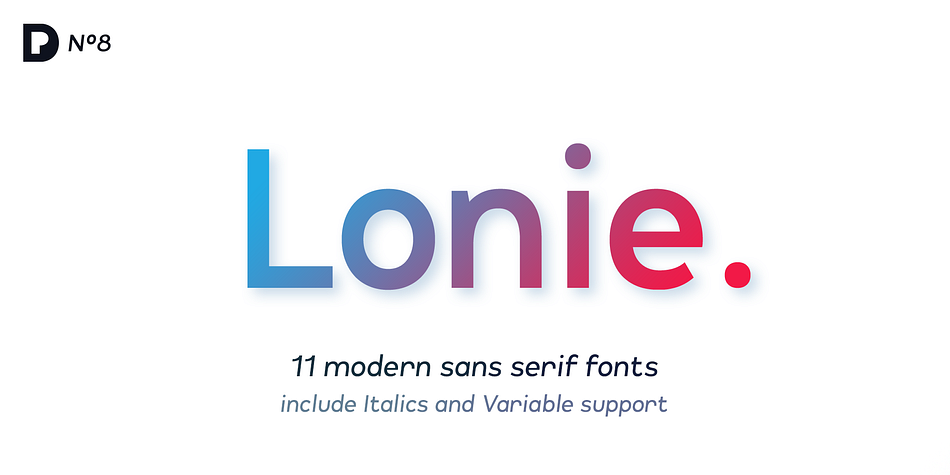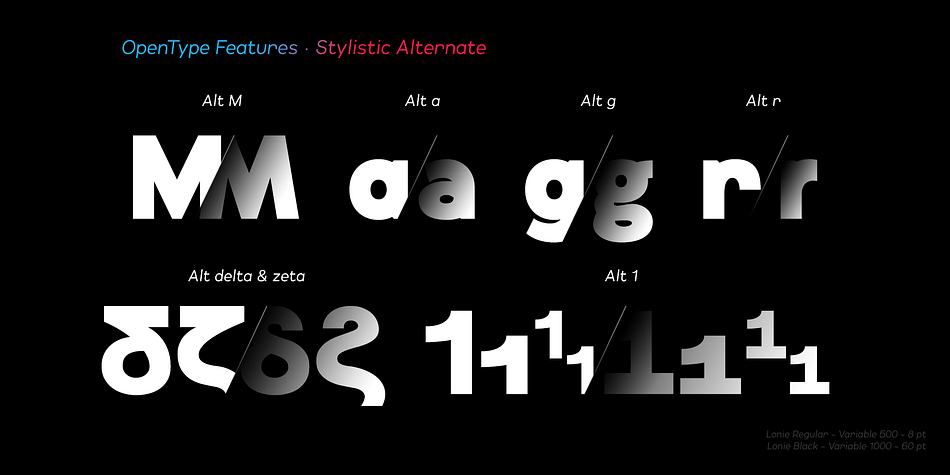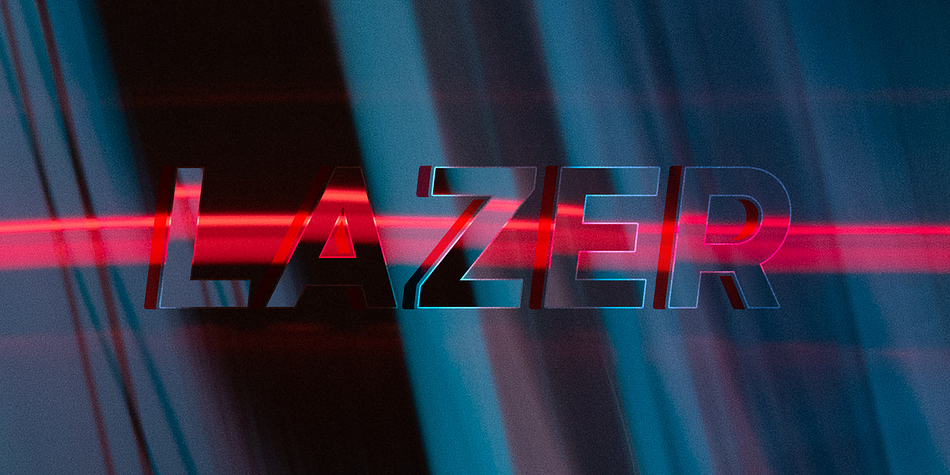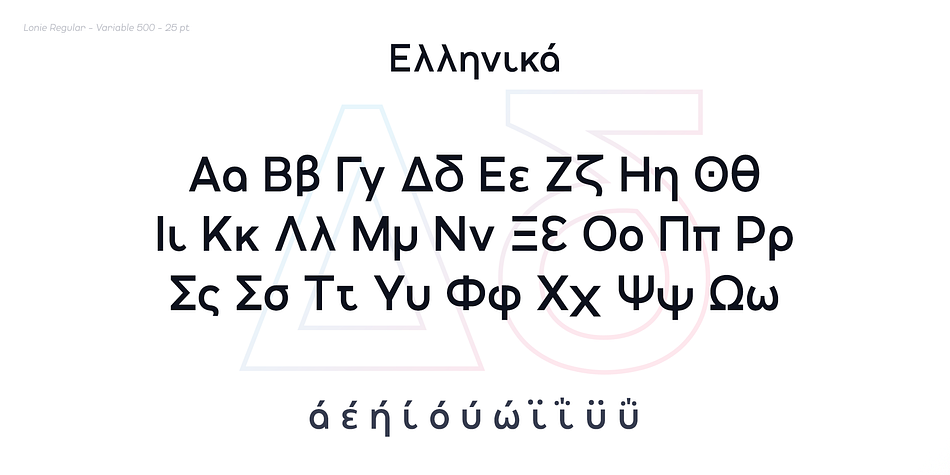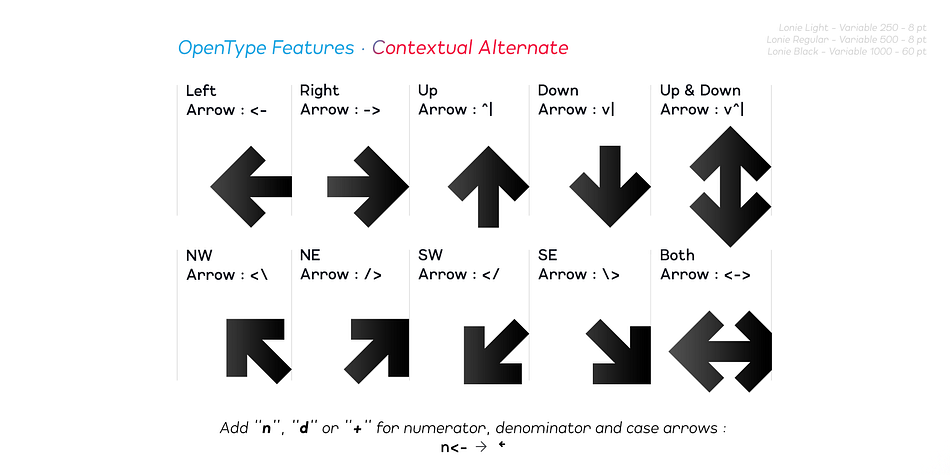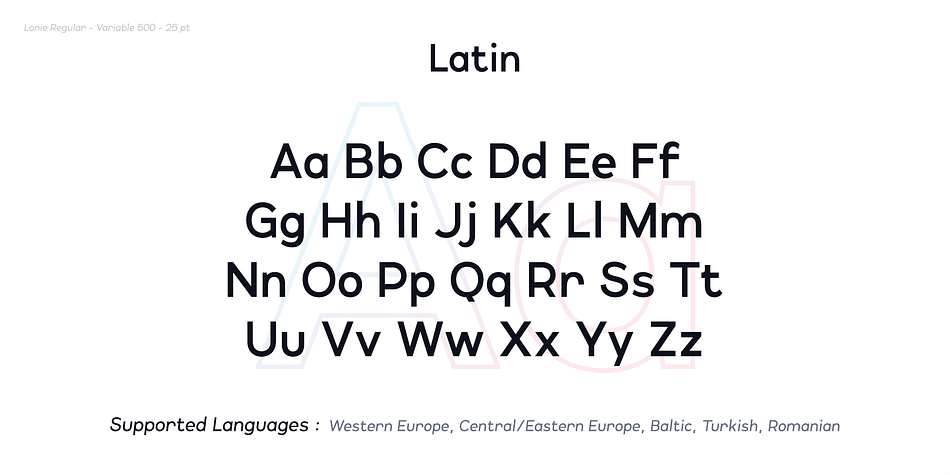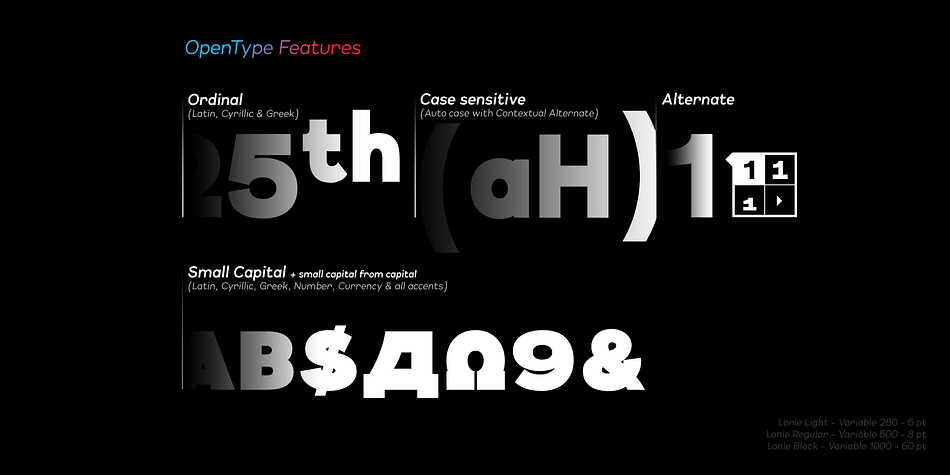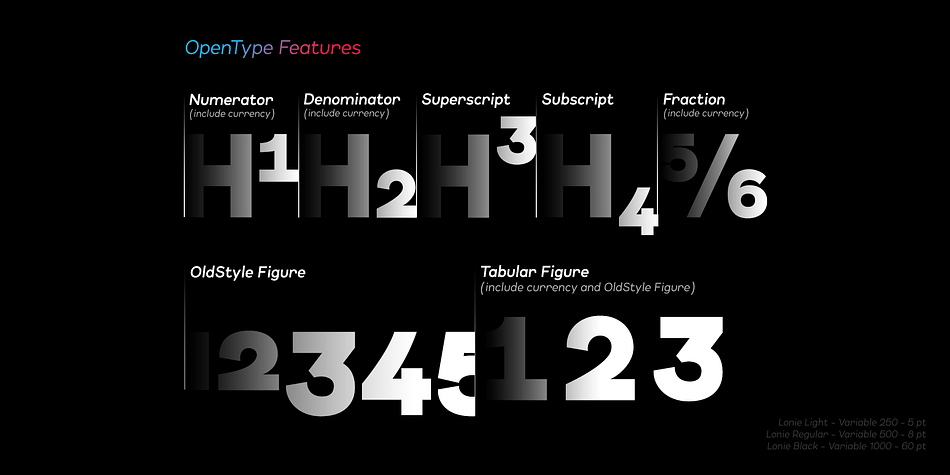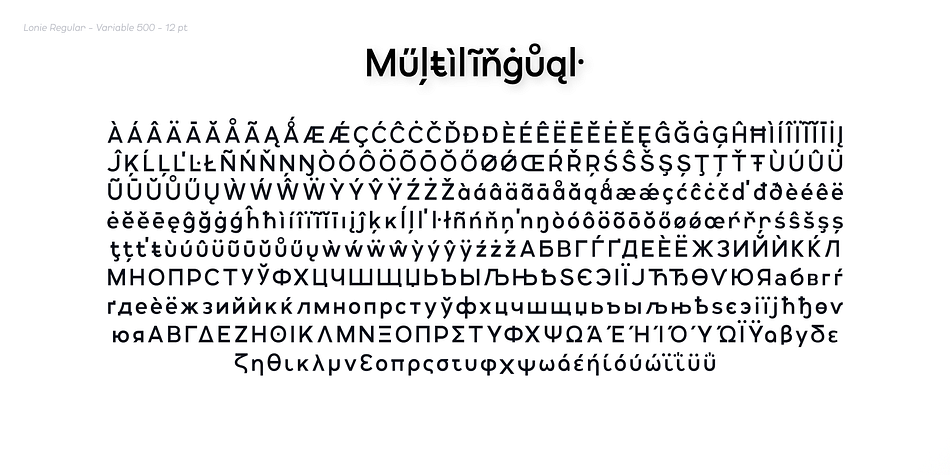
Lonie
Lonie is a sans serif font family. This typeface has eleven styles and was published by Par Défaut.
Lonie is sans serif font family (include 5 weight, italic and variable)
It contains more than 1200 characters including the Latin, Cyrillic and Greek alphabet
There are also 15 OpenType features (Superior; Inferior; Numerator; Denominator; Fraction; Tabular Lining; ;OldStyle Figure; Small Capital; Small Capitals from Capitals; Contextual Alternate; Case Sensitive; Ordinals; Access All Alternates; Stylistic Set).